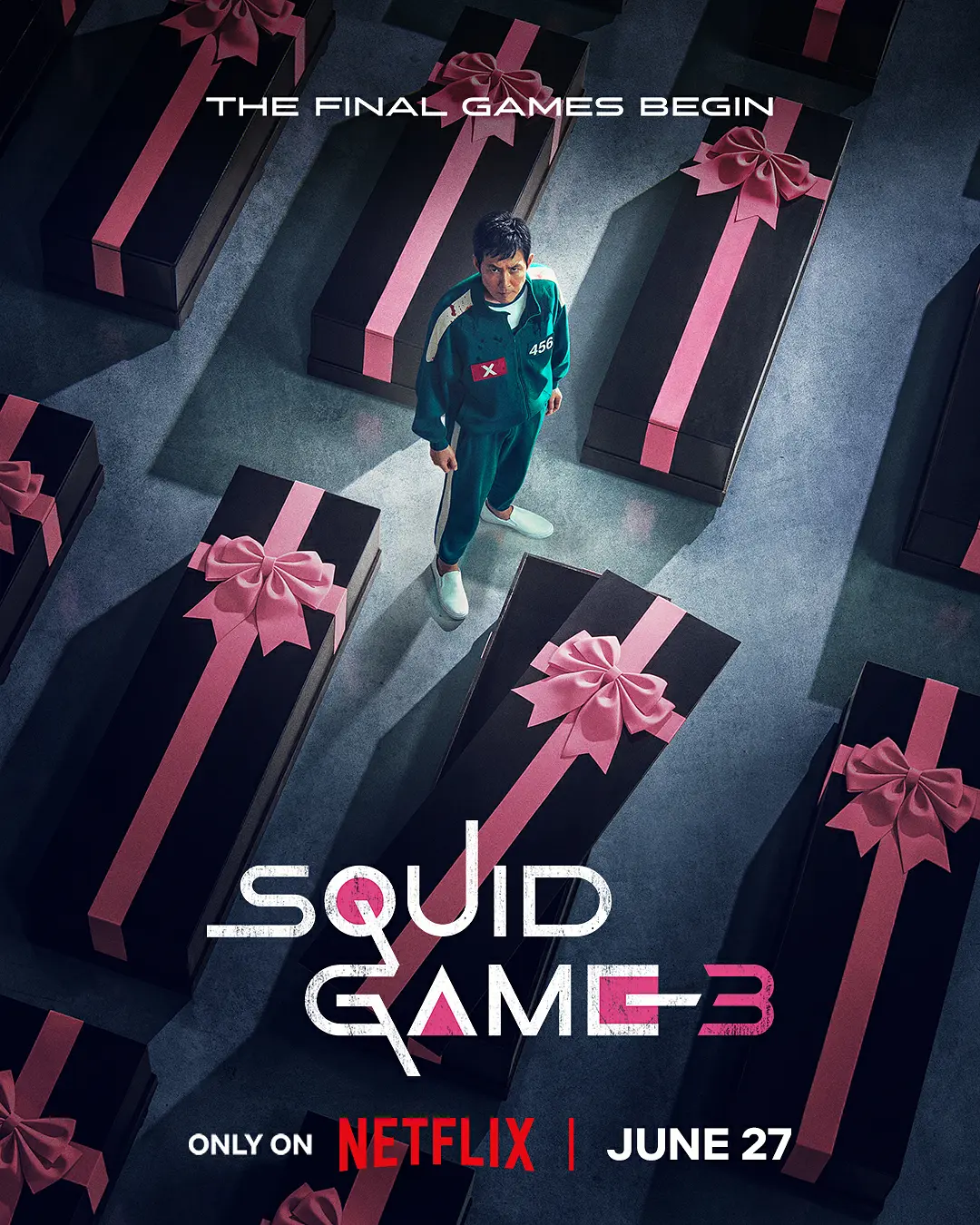
About Squid Game Font Generator
Squid Game Netflix series official poster showing the iconic typography and visual style
Official Squid Game poster featuring the distinctive typography that inspired our font generator
Squid Game (오징어 게임) is a South Korean survival drama television series created by Hwang Dong-hyuk for Netflix. The series became a global phenomenon and Netflix's most-watched series, captivating audiences worldwide with its unique visual style and compelling storytelling. The distinctive typography used in Squid Game's promotional materials and title cards has become iconic, featuring bold, impactful letterforms that perfectly capture the series' intense and dramatic atmosphere. Our Squid Game Font Generator allows you to recreate this authentic look for your own projects, whether you're creating social media content, fan art, or design projects inspired by this groundbreaking Korean drama.
Fonts Used
Squid Game Display
Family: Squid Game
A geometric display style echoing the iconic show typography, optimized for headings and short phrases.